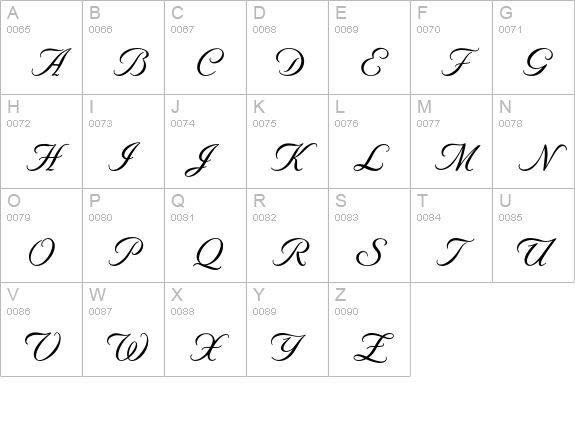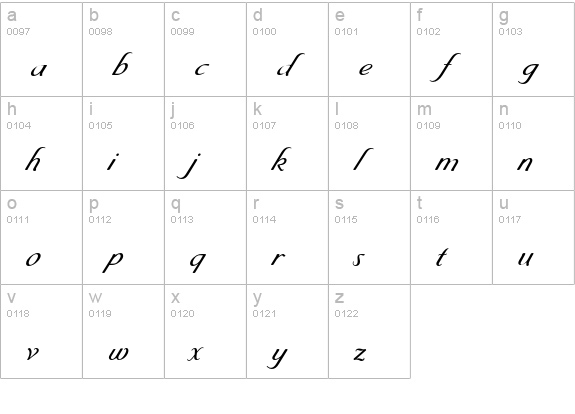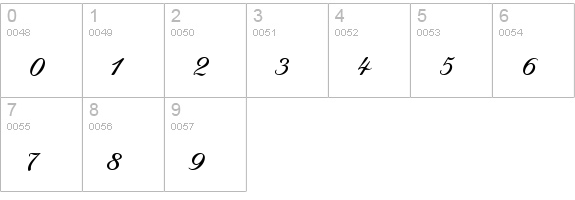
Byron RR Medium is a balanced, medium-weight variant in the Byron typeface family \xE2\x80\x94 well suited to sub-headlines, navigation, and balanced editorial work.
The Byron RR Medium font is a versatile and stylish typeface that strikes the perfect balance between elegance and readability. Its medium weight makes it ideal for a wide range of design projects, from branding and advertising to editorial and web design. The classic yet modern look of Byron RR Medium will add a touch of sophistication to any project. And the best part? Byron RR Medium is available for free download at FontsMarket.com. This means you can elevate your designs with this high-quality font without any cost. Don't miss out on the opportunity to enhance your creative projects with the timeless charm of Byron RR Medium. Download it today and see the difference it can make in your work!